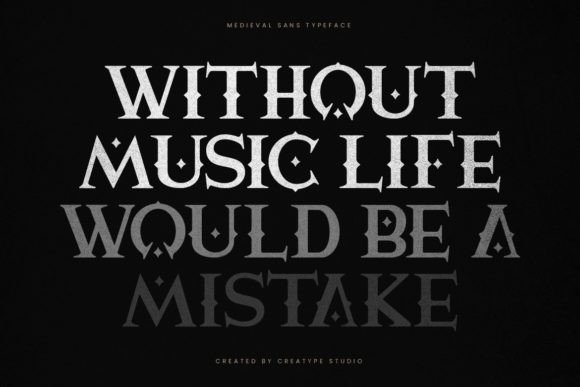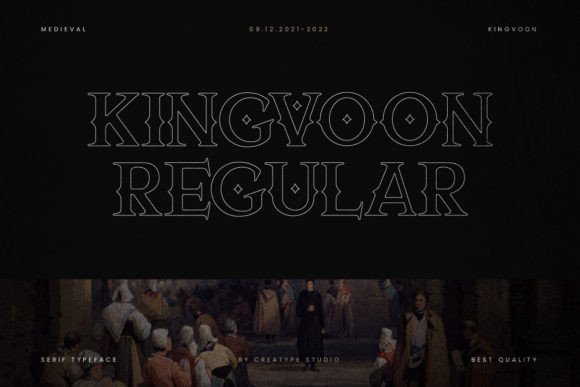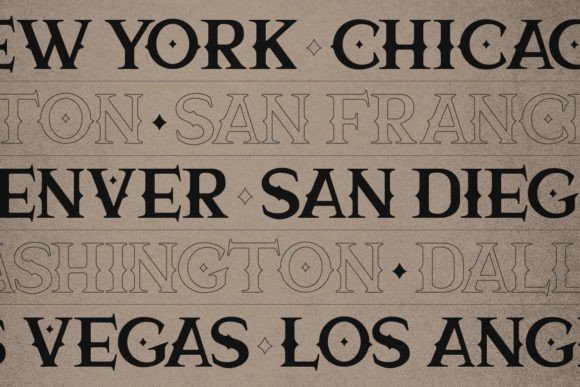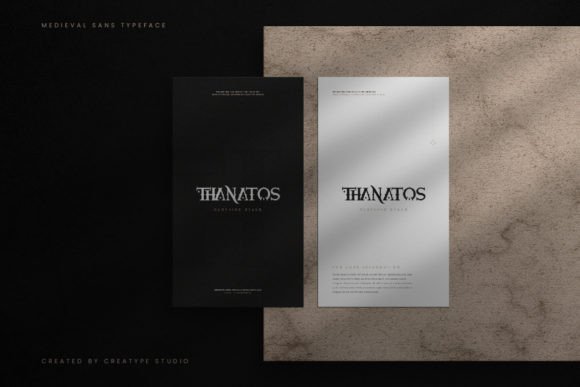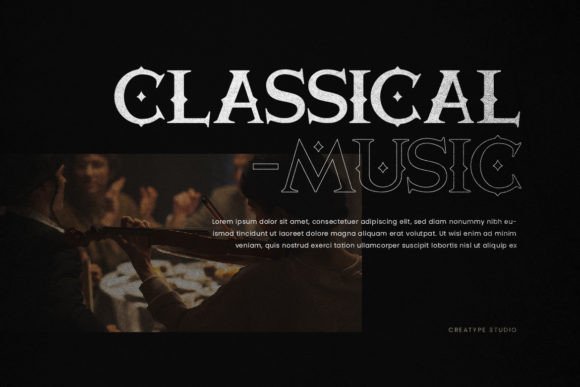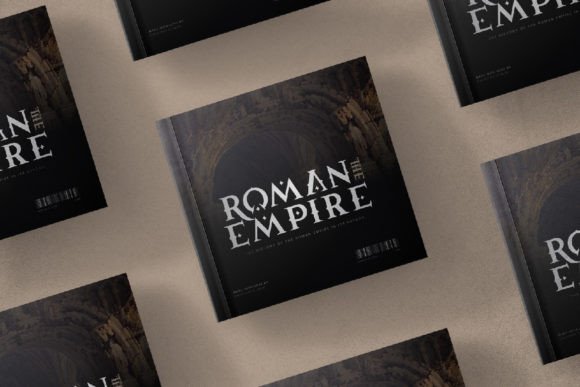
Introduction to Kingvoon Font
Kingvoon is a unique and incredibly interesting display font.
With an exquisite, medieval vibe, this font is perfect for all your historical-themed projects .
Kingvoon Font offers exceptional quality and versatility, making it a valuable addition to your design toolkit. Whether you’re creating for personal projects or commercial use, Kingvoon Font delivers professional results.